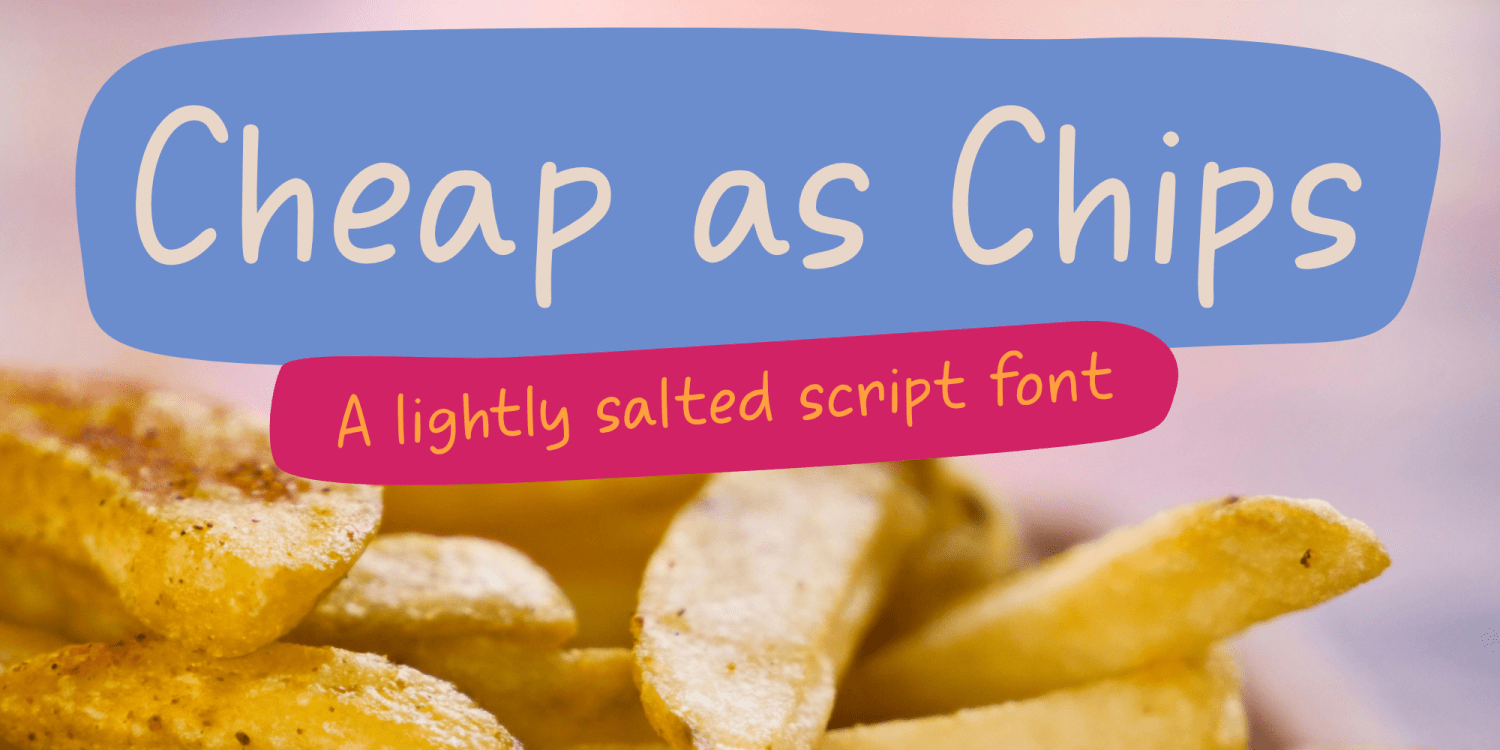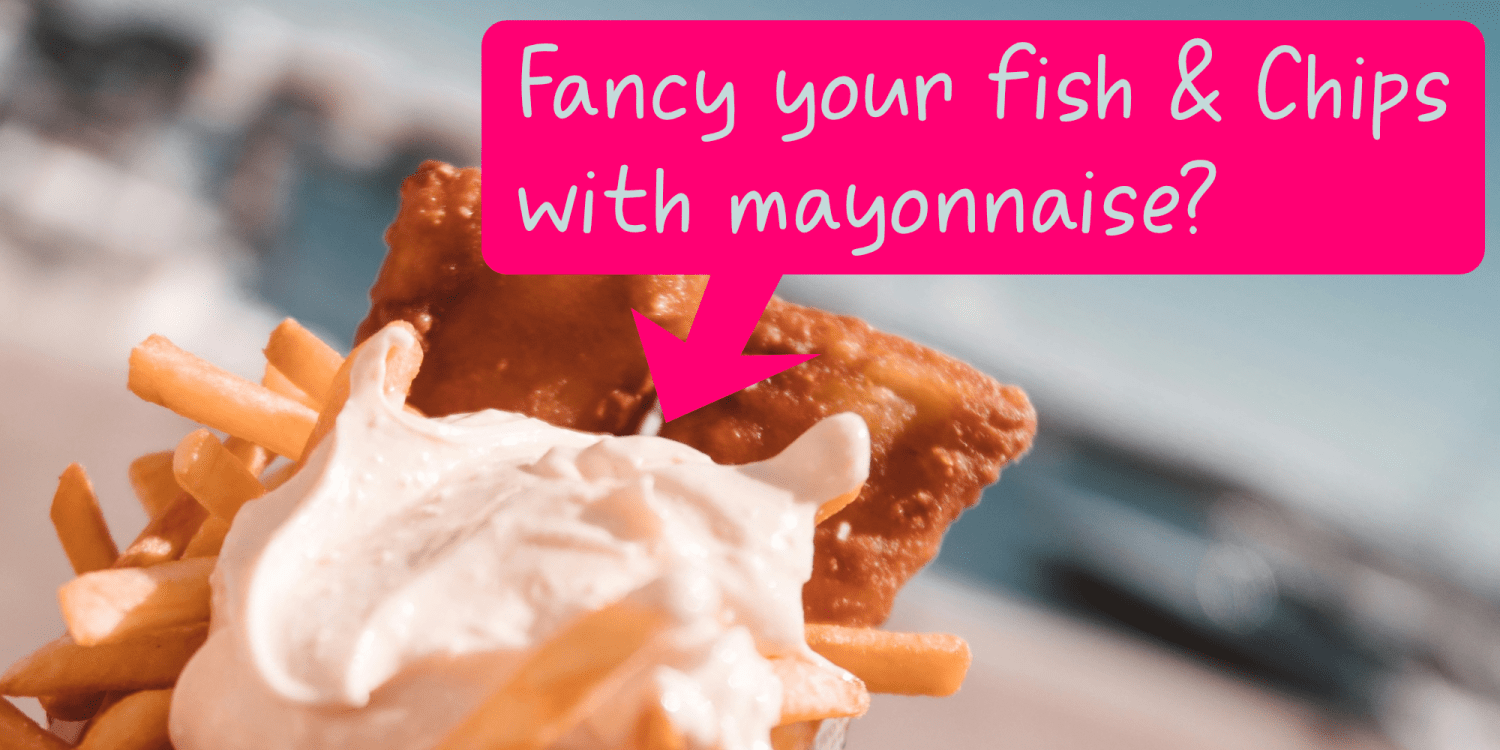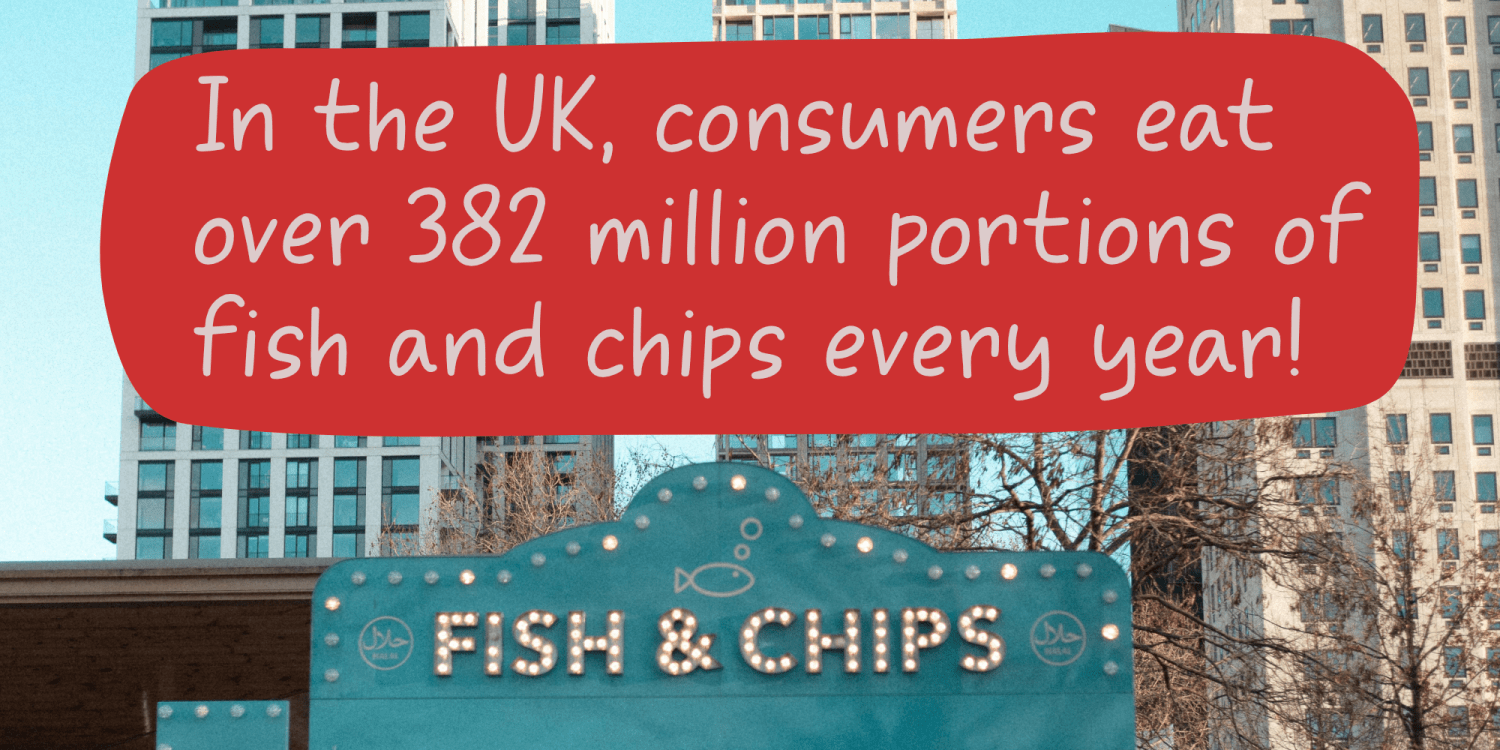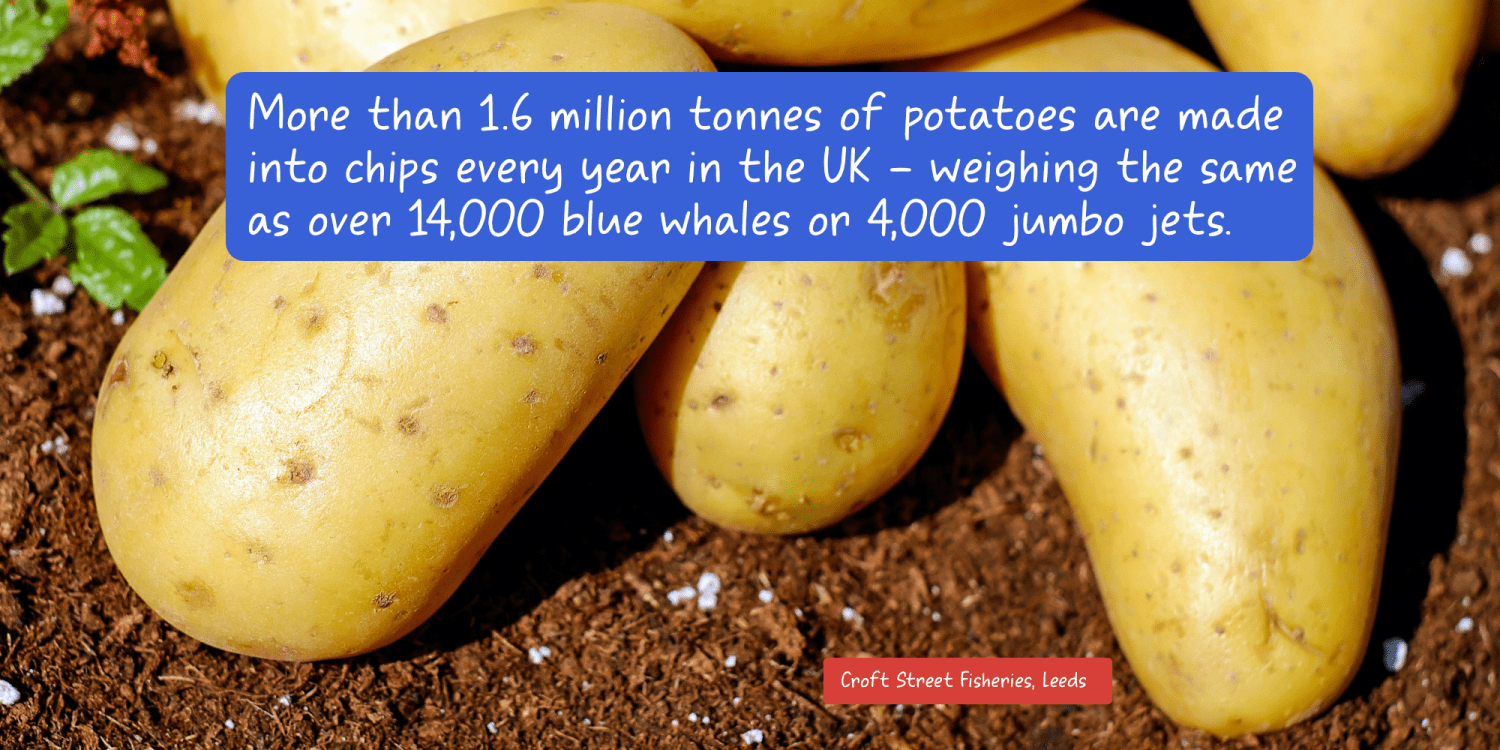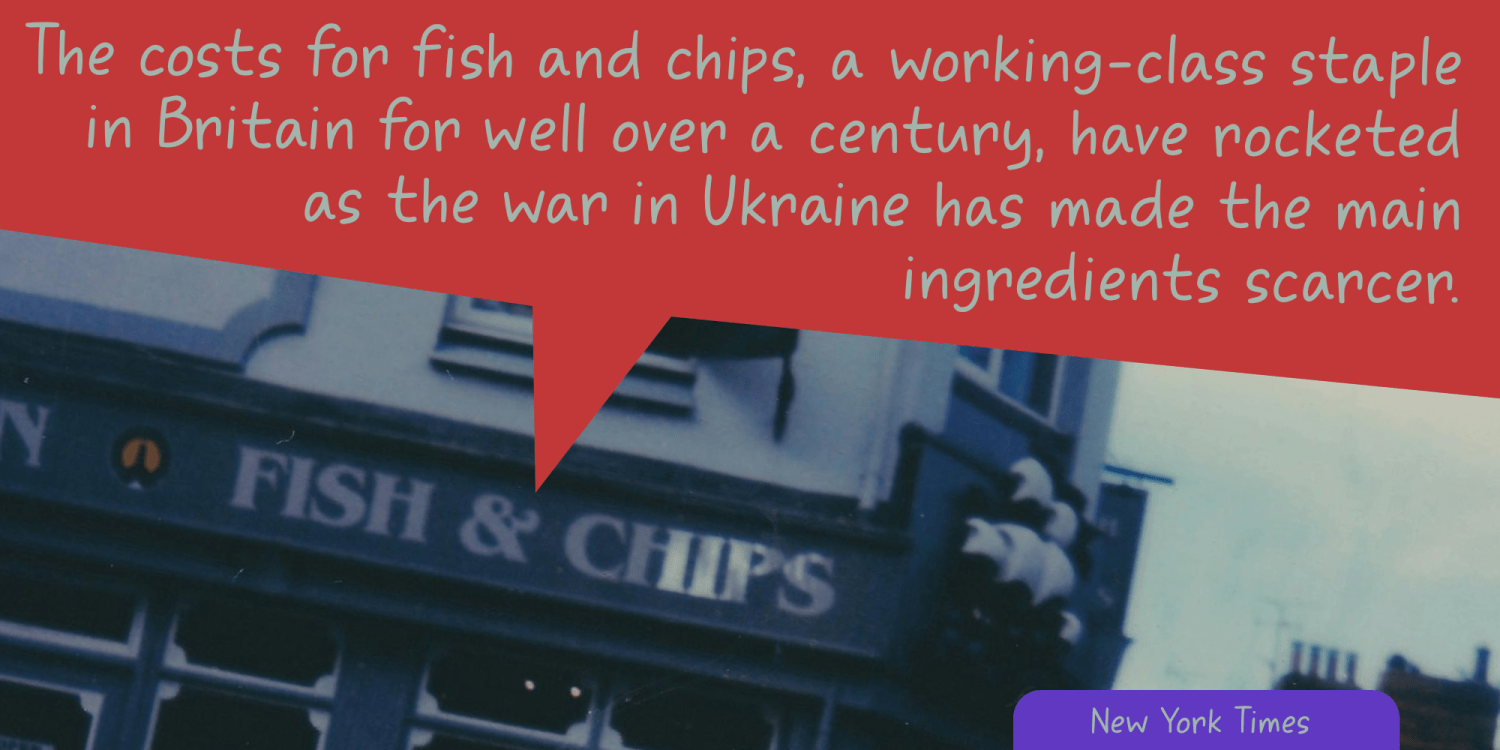
Cheap As Chips
I love Fish & Chips, especially when I am hiking in the UK. I do have to say that the best F&C I have ever had was in New Zealand, but since that means travelling to the end of the world, I will make do with the British snack.
Cheap As Chips is a British expression, but nowadays it is a bit redundant, as Fish & Chips are not cheap. Over-fishing, lost harvests due to extreme weather and the war in Ukraine (where a lot of potatoes and wheat (for the batter) are grown) all make for an expensive dinner.
Cheap As Chips font, however, lives up to its name. It is not too expensive, it will go with just about anything and it doesn’t smell fishy at all.